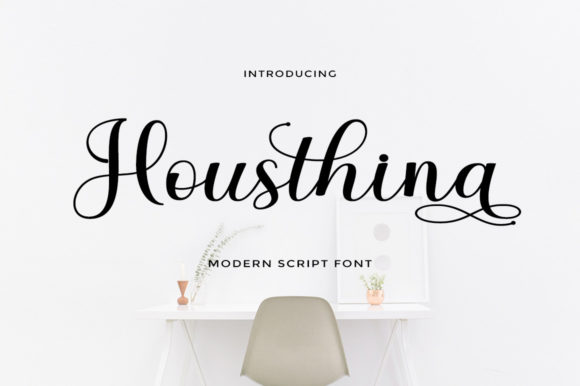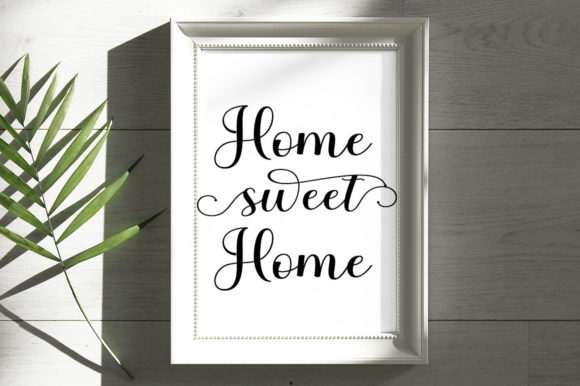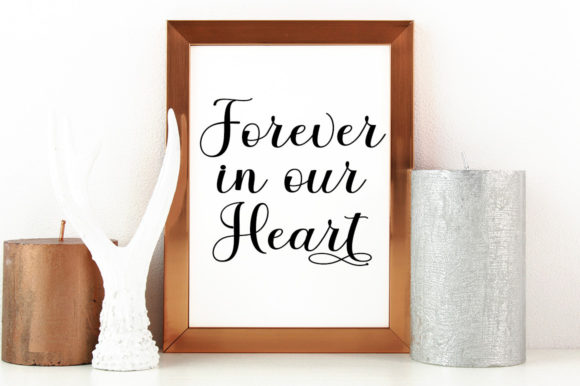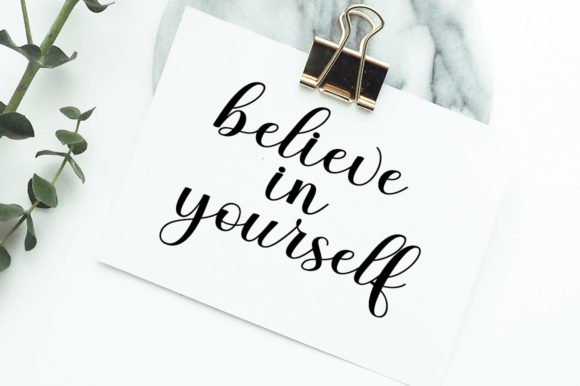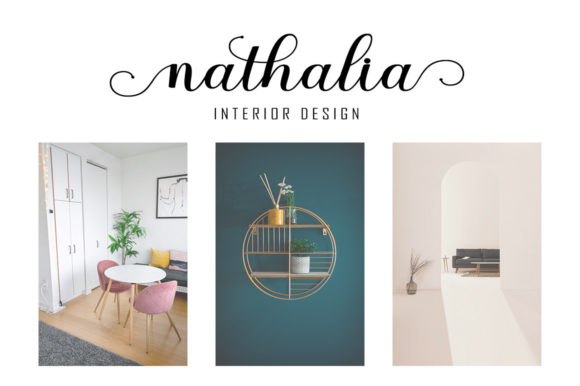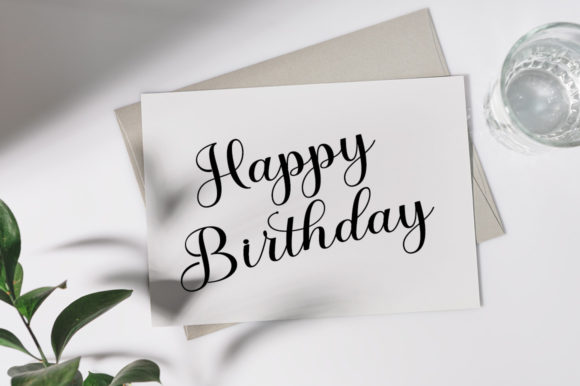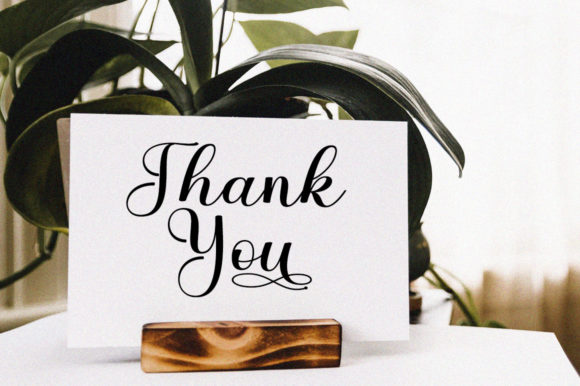
Housthina Script Font
About Housthina Script Font
Housthina Script is an exquisite script font, that will enhance the beauty of each of your designs. This font is PUA encoded which means you can access all glyphs and swashes with ease!